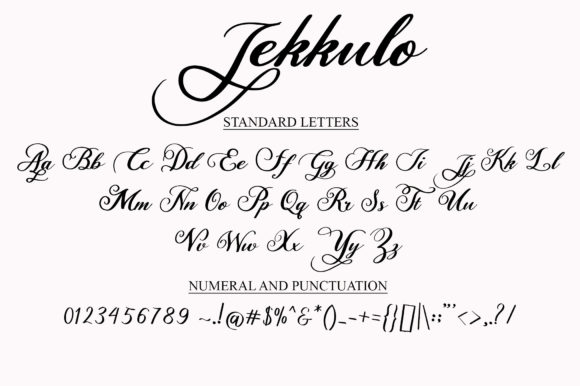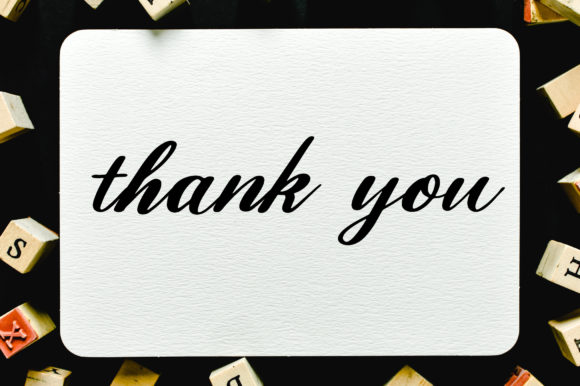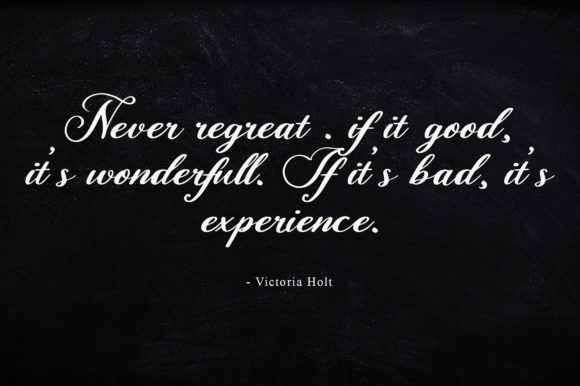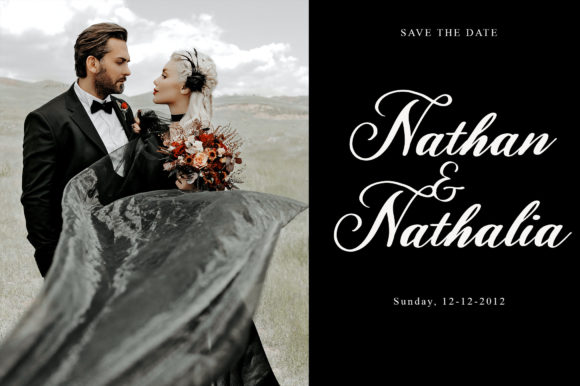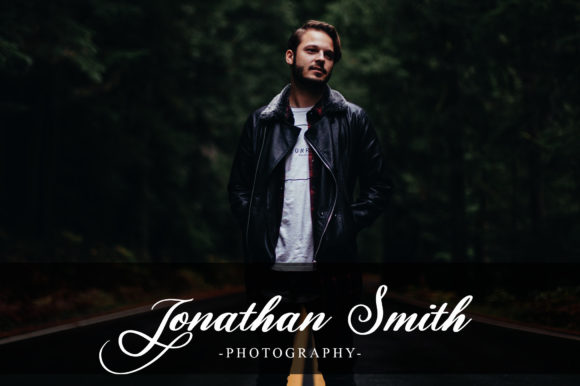
About Jekkulo Font
Jekkulo is an elegant script font with a contemporary atmosphere and impeccable form, inspired by the timeless classic calligraphy. Not too thin and not too thick, balanced and varied, this font was designed to enhance the beauty of your projects.